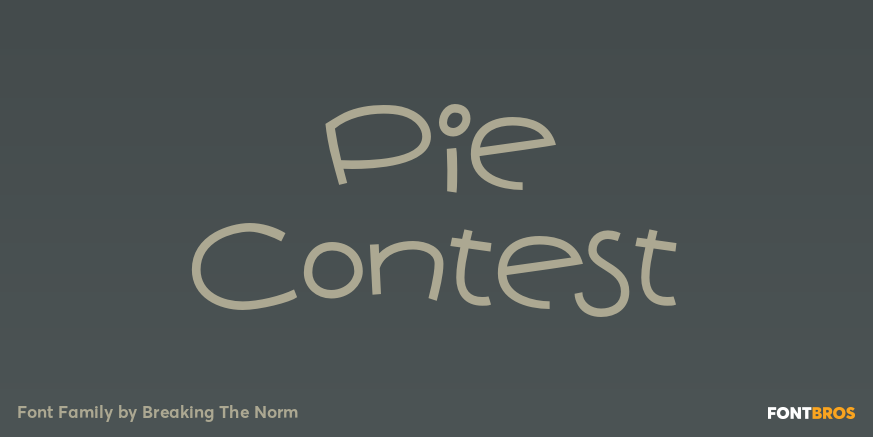
Tell the gals at the craft show you mean business with Pie Contest. This homestyle typeface feels like a warm hug on a chilly day! And make no mistake, friendly or not, Pie Contest is no joke.